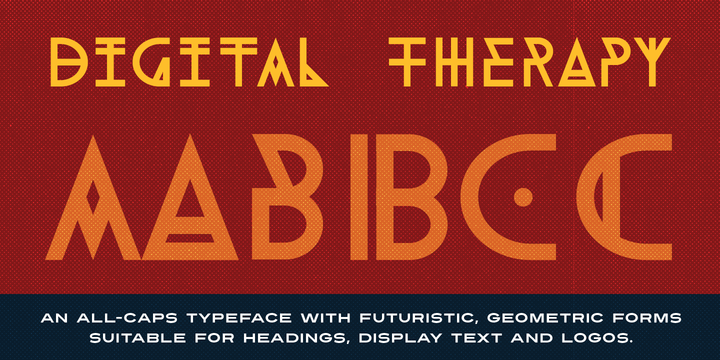
Digital Therapy
by Sean Johnson
Digital Therapy is a futuristic typeface with geometric forms. It features heavily stylised all-caps letterforms suitable for logos, display text and headings.